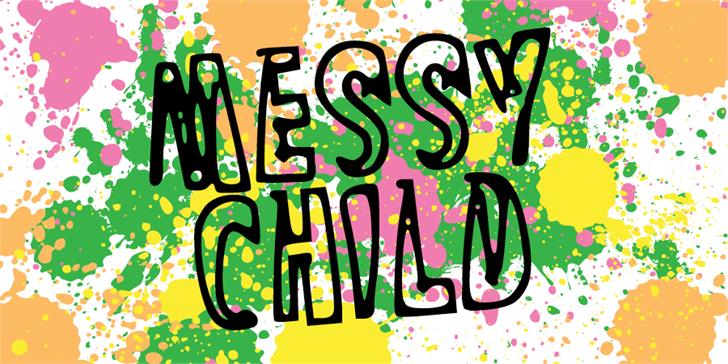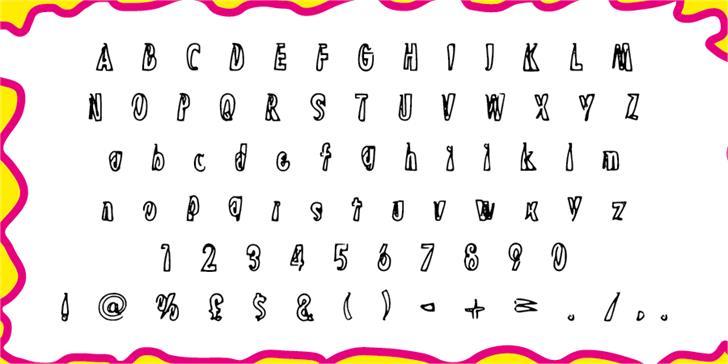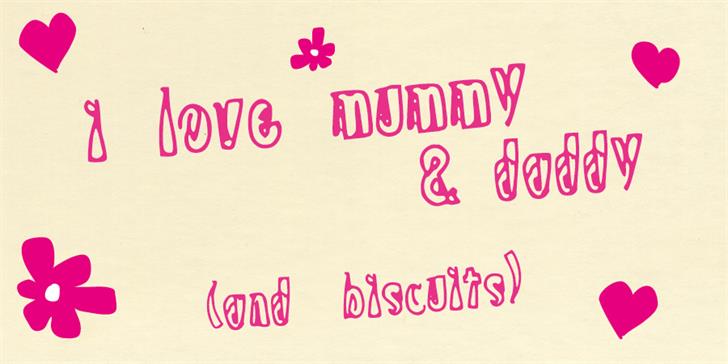
Introduction to Lilly’s Font Font
As a designer, there’s nothing quite like that moment of creative spark – the one where you stumble upon the perfect design element that takes your project from meh to mesmerizing. For me, that moment came when I was brainstorming ideas for a children’s book cover. I wanted something playful, whimsical, and full of personality. That’s when I turned to my trusty design resource: Lilly’s Font Font.
This font has been a labor of love, inspired by my own little bundle of joy. I wanted to create a font that captured the essence of childhood – messy, fun, and full of energy. With Lilly’s Font Font, you’ll get a high-quality design element that’s perfect for any creative project that needs a dash of whimsy. Plus, it’s available for free download, making it a valuable addition to any designer’s toolkit.
Whether you’re working on a design project that requires a transparent background or just want to add some personality to your social media graphics, Lilly’s Font Font is the perfect choice. So why not give it a try and see how it can elevate your next creative project?
Key Features of Lilly’s Font Font
- High-quality, professional font suitable for various creative projects, including graphic design, digital art, and publishing.
- Unique characteristic: Lilly’s Font Font features a unique blend of modern and vintage elements, making it an excellent choice for designers seeking a distinctive look.
Honest Review: Lilly’s Font Font
- ✨ High-quality design: Lilly’s Font Font has a professional, modern feel that would be perfect for a variety of creative projects.
- ✨ Versatile: The font comes in a range of styles and weights, making it easy to find the perfect fit for your project.
- ⚠️ Limited character set: While the font has a wide range of styles and weights, it’s not as comprehensive as some other fonts I’ve used.
- ⚠️ Not ideal for complex text: Due to its modern design, Lilly’s Font Font may not be the best choice for complex or long blocks of text.
Overall, I was impressed with Lilly’s Font Font and would definitely recommend it for creative projects that require a high-quality, modern design. Just be aware of its limitations and use it accordingly.